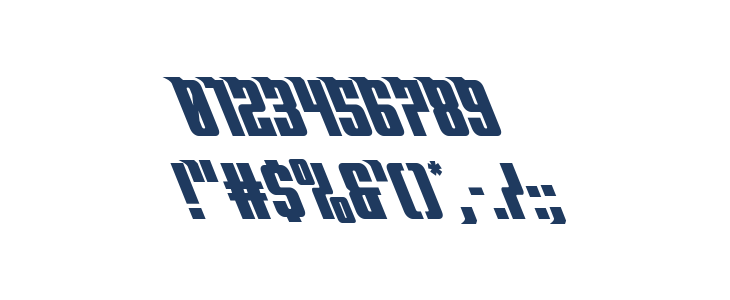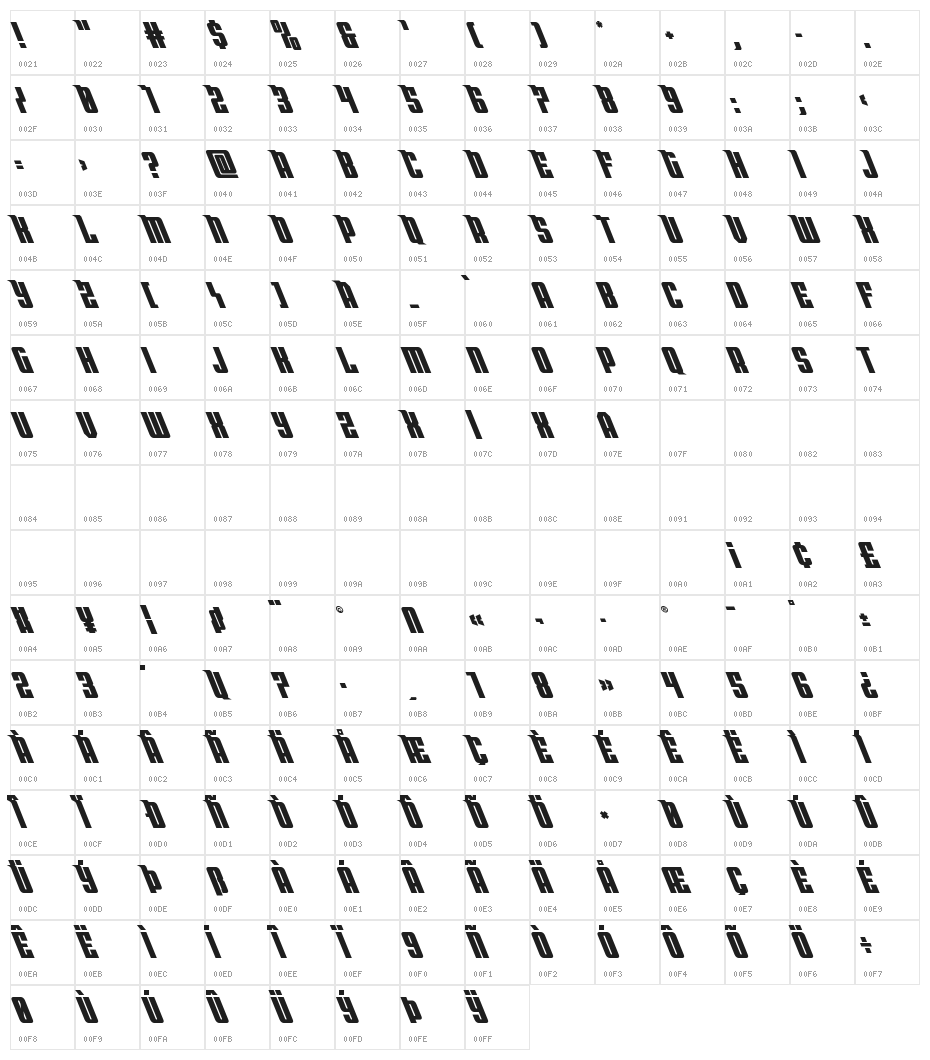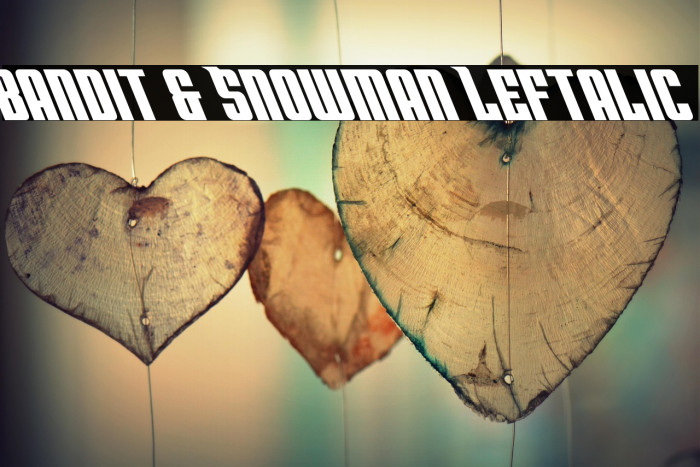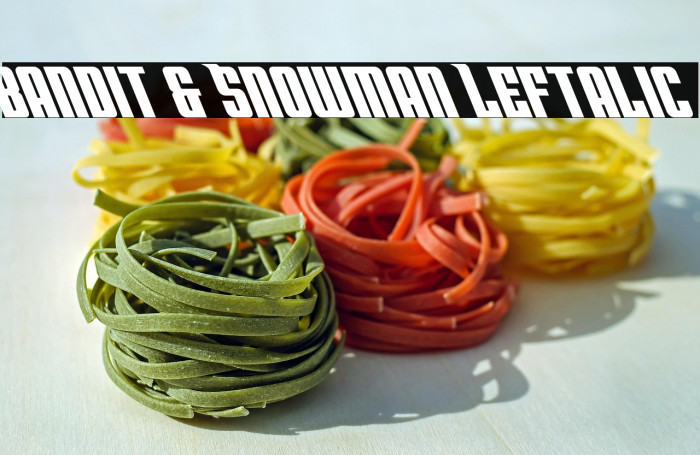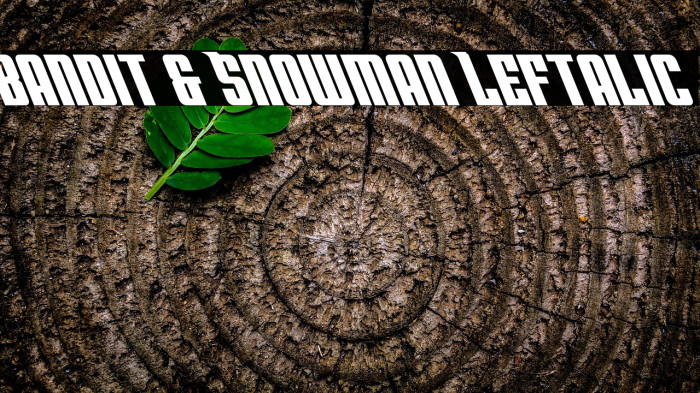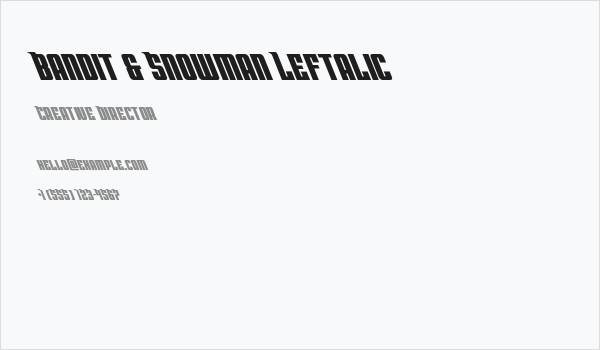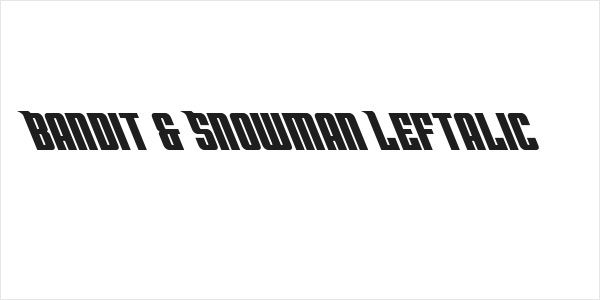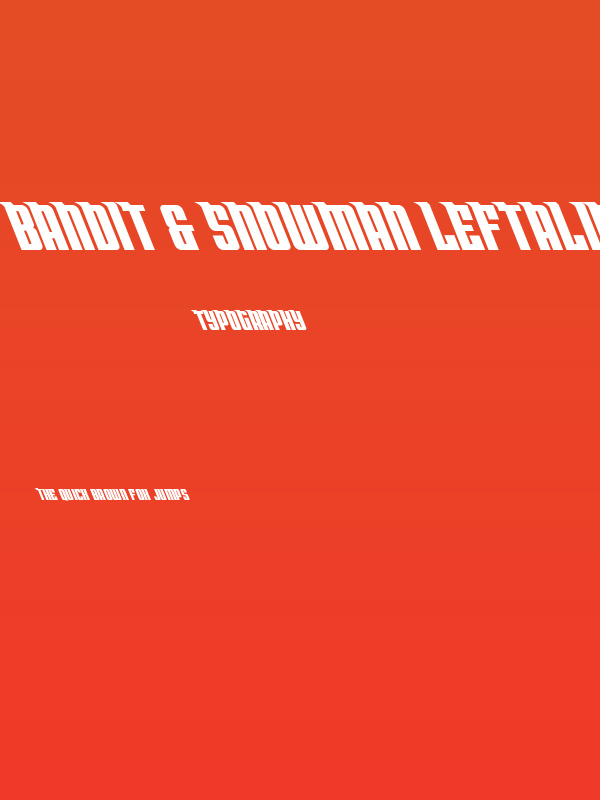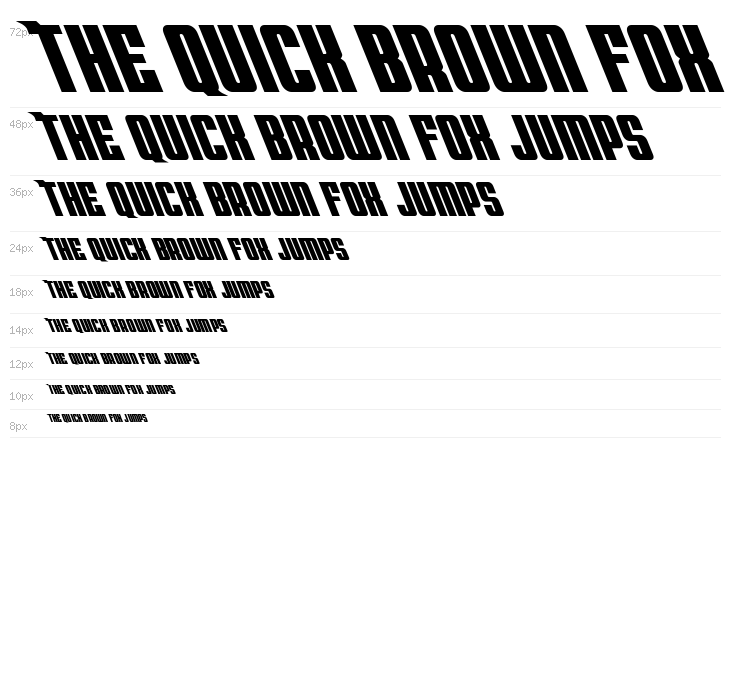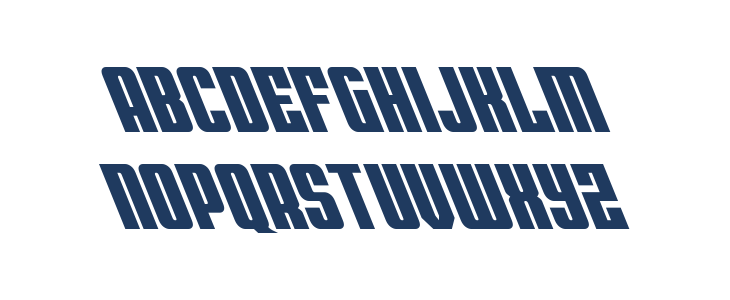
Bandit & Snowman Leftalic Font
Bandit & Snowman Leftalic Description
This font features a bold and dynamic style with a strong slant to the left, giving it a sense of motion and energy. The characters are wide and blocky, with sharp edges and a uniform thickness throughout. The uppercase and lowercase letters maintain a consistent height, contributing to a cohesive and powerful appearance. Numbers and special characters are designed with the same boldness and slant, ensuring a harmonious look across all elements. This font's striking design makes it ideal for attention-grabbing headlines and impactful visual statements.
| Proposed Projects | Ideal for sports branding, dynamic posters, and eye-catching headlines. |